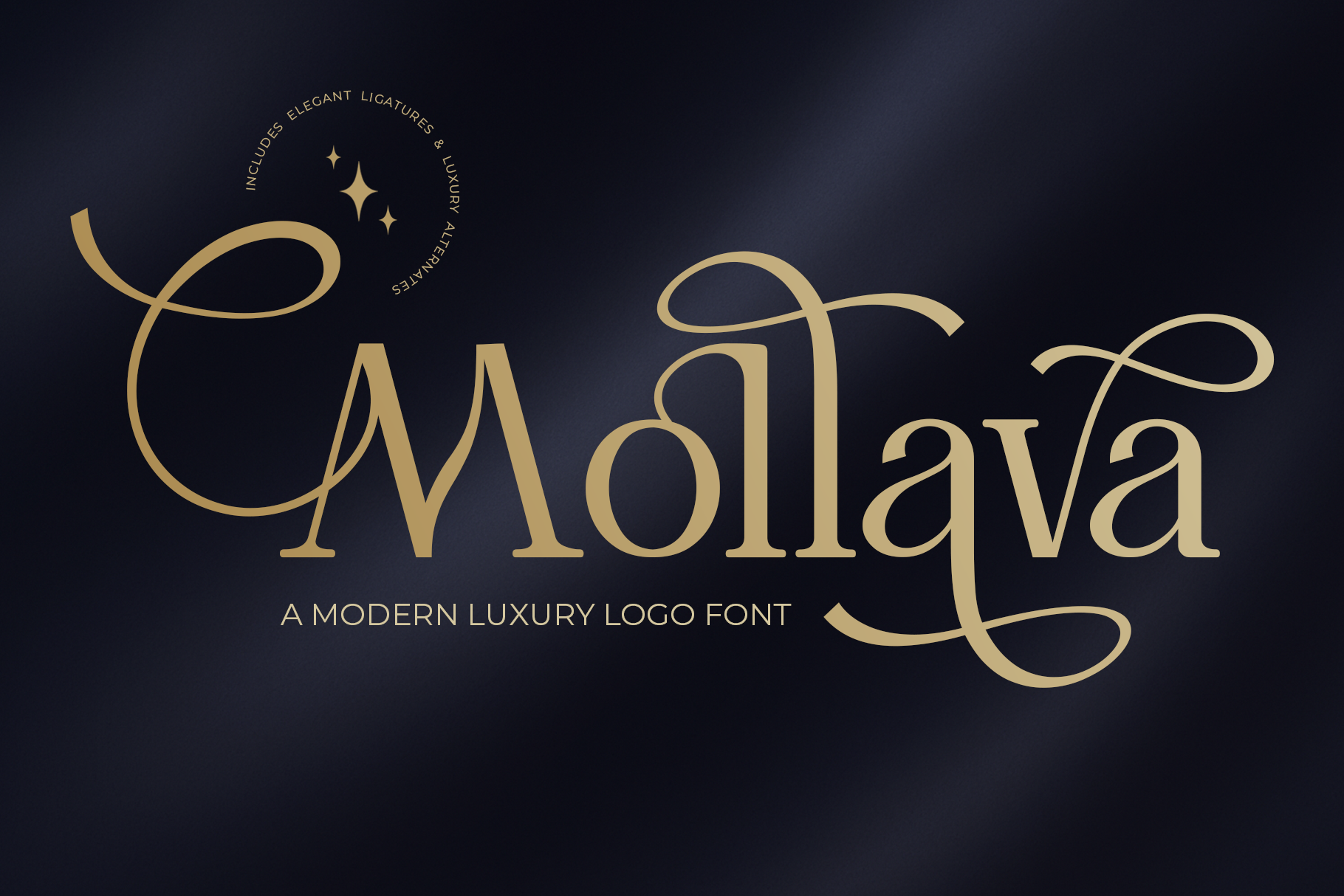
Mollava – A Modern Luxury Logo Font
Mollava is a modern luxury serif font designed to bring elegance and sophistication to your branding. With its stylish ligatures, unique alternates, and graceful curves, Mollava is the perfect choice for creating premium logos, high-end packaging, fashion branding, wedding invitations, beauty products, magazines, and more.
This font combines a timeless serif structure with luxurious calligraphic swashes, giving every design a refined and exclusive look. Whether you’re designing a personal project or crafting a professional brand identity, Mollava delivers a touch of modern glamour and elegance.
- Elegant uppercase & lowercase letters
- Beautiful ligatures & stylish alternates
Mollava is more than just a typeface, it’s the ultimate modern luxury logo font that will elevate your creative projects and make them stand out with sophistication.